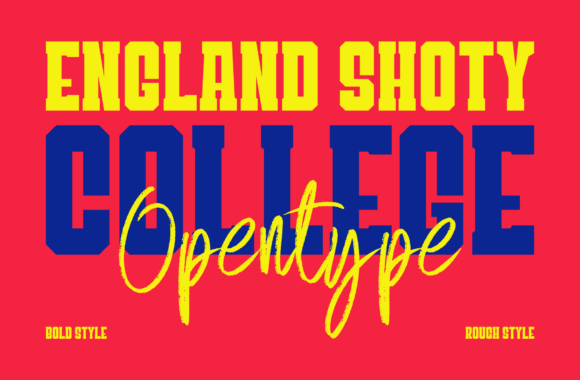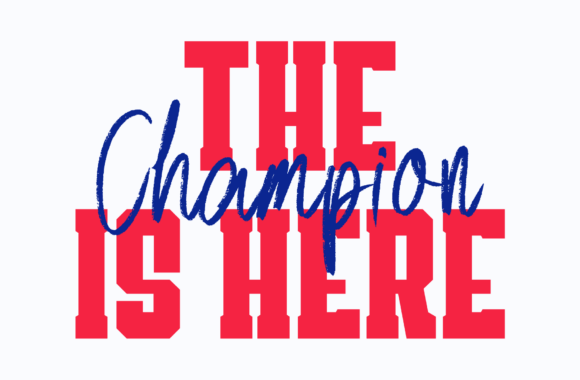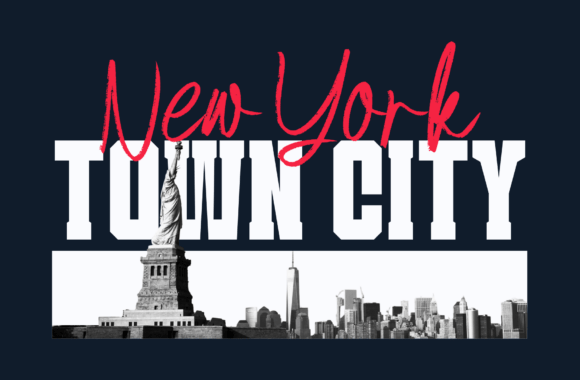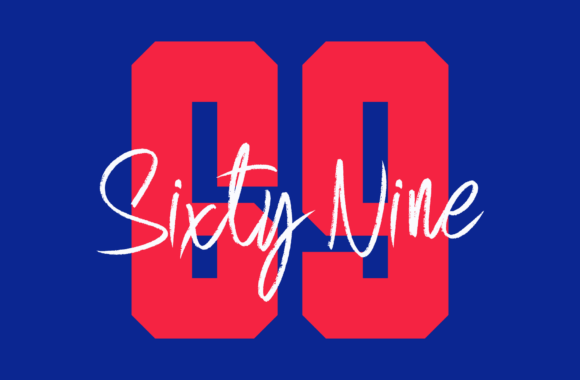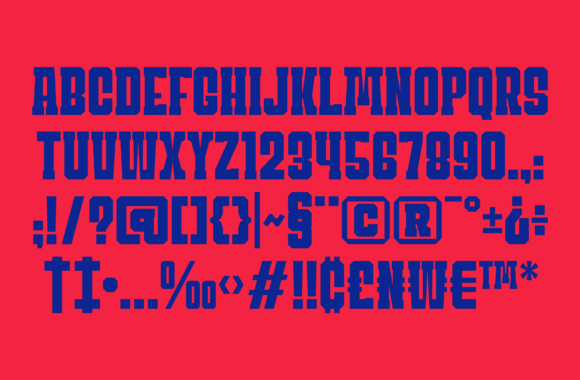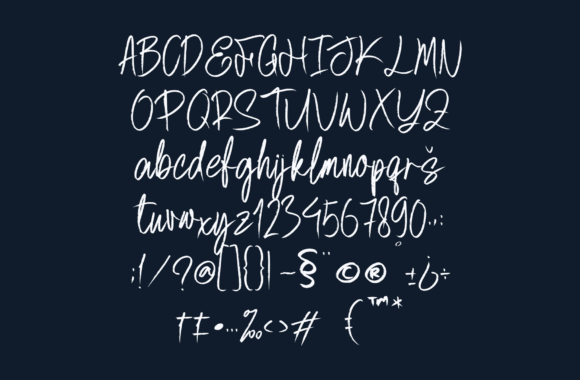
Introduction to England Shoty Font
England Shoty is a bold and dynamic duo of fonts designed to blend athletic energy with expressive flair.
The font features two distinct typefaces: a Slab Serif Sport Style font characterized by strong, blocky, geometric letterforms ideal for sports branding and collegiate themes and a Rough Brush Script font that adds a sense of movement and personality through hand-drawn, textured strokes This combination creates a striking visual identity that balances strength and elegance, making it perfect for athletic logos, team merchandise, and promotional materials.
Key Features of England Shoty Font